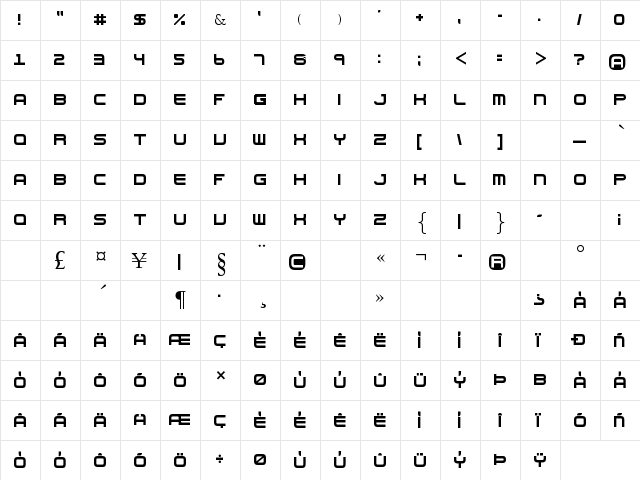
Nes Controller Regular
Design Context for Nes Controller Typeface
Nes Controller takes a measured approach to typography — its balanced proportions and neutral character make it a reliable workhorse for both digital and print work.